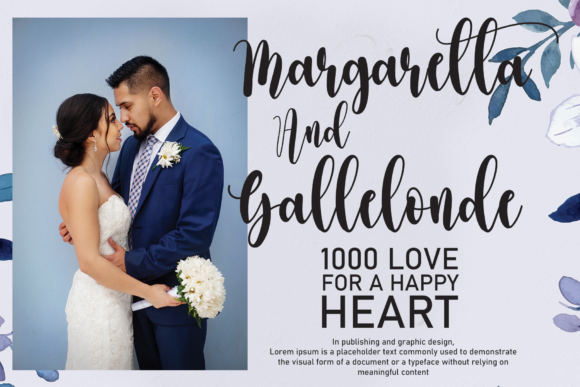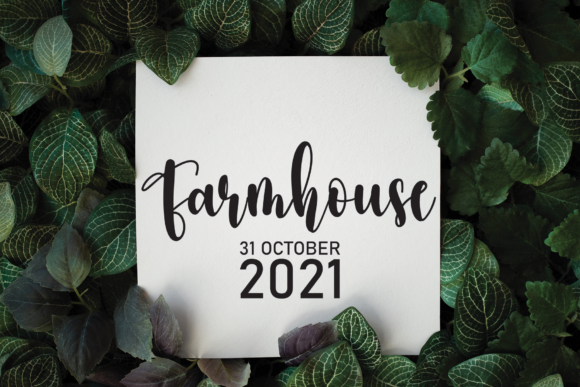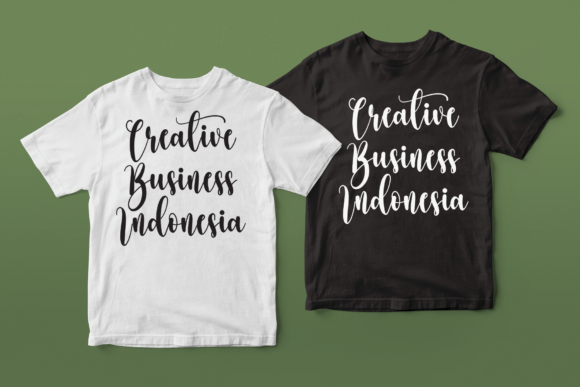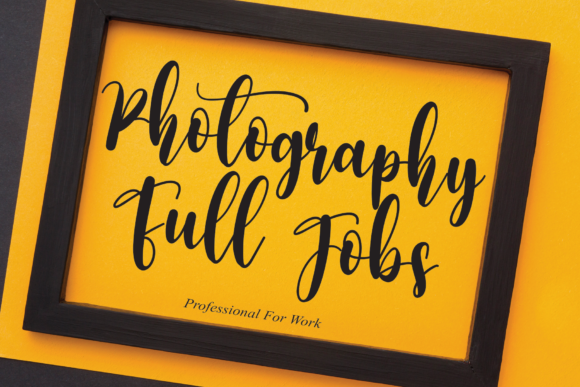
Amellinda Font
About Amellinda Font
Amellinda is a lovely script font featuring charming, playful characters that seem to dance along the baseline. Add this font to your most creative ideas, and notice how it makes them stand out!